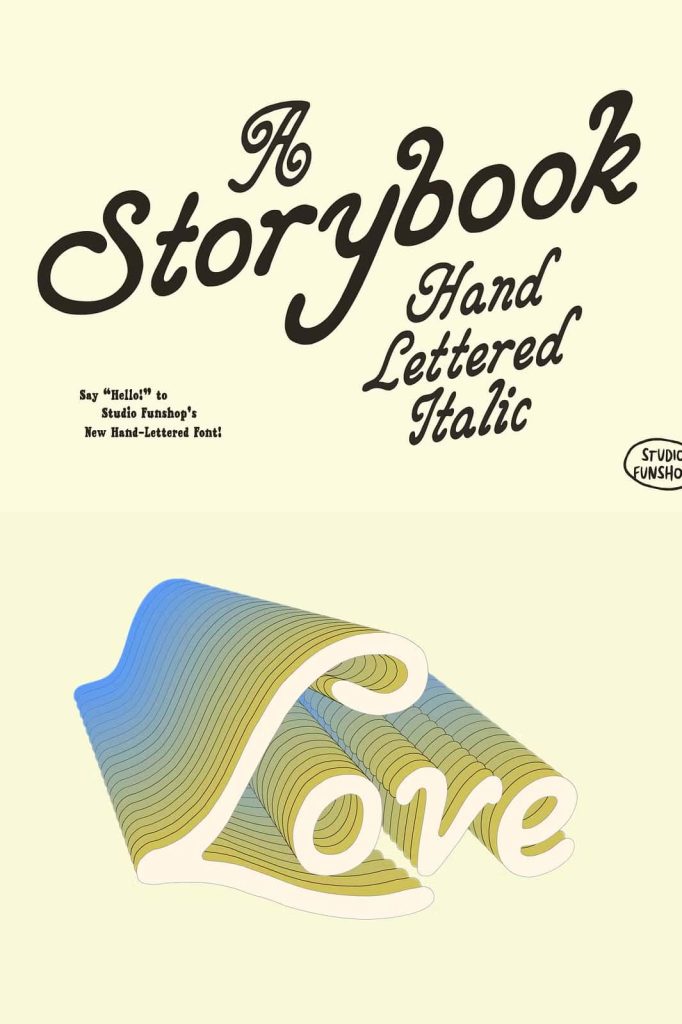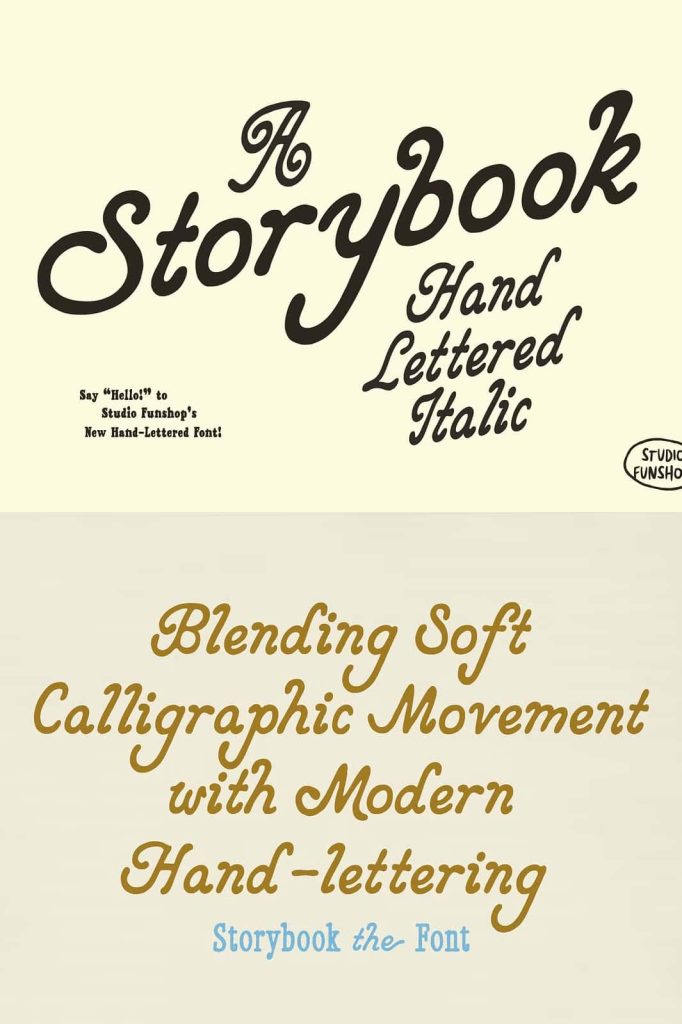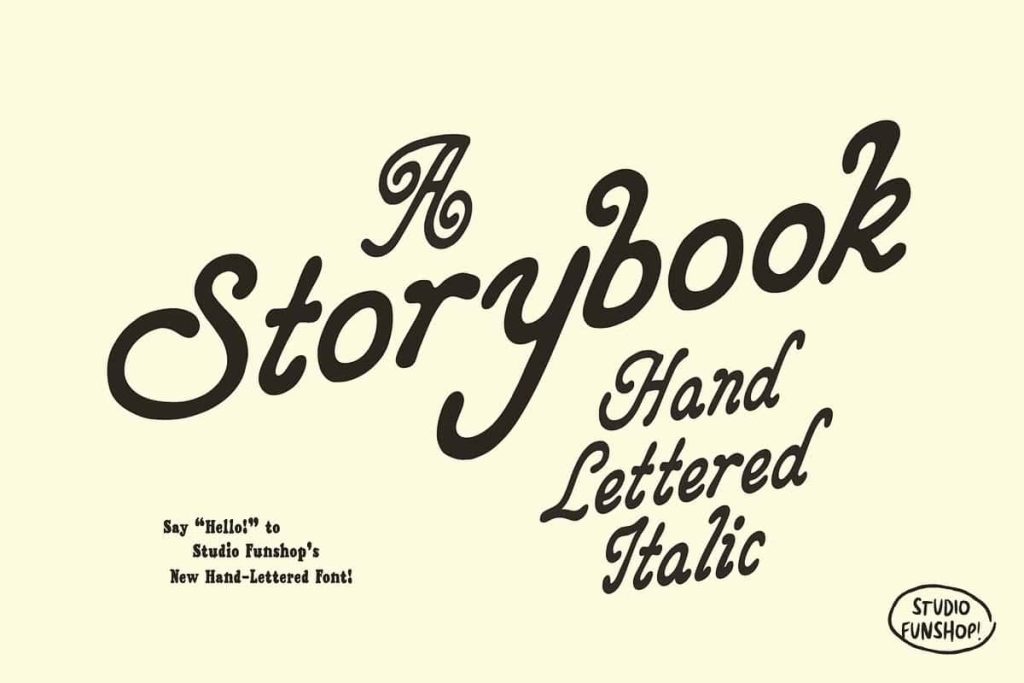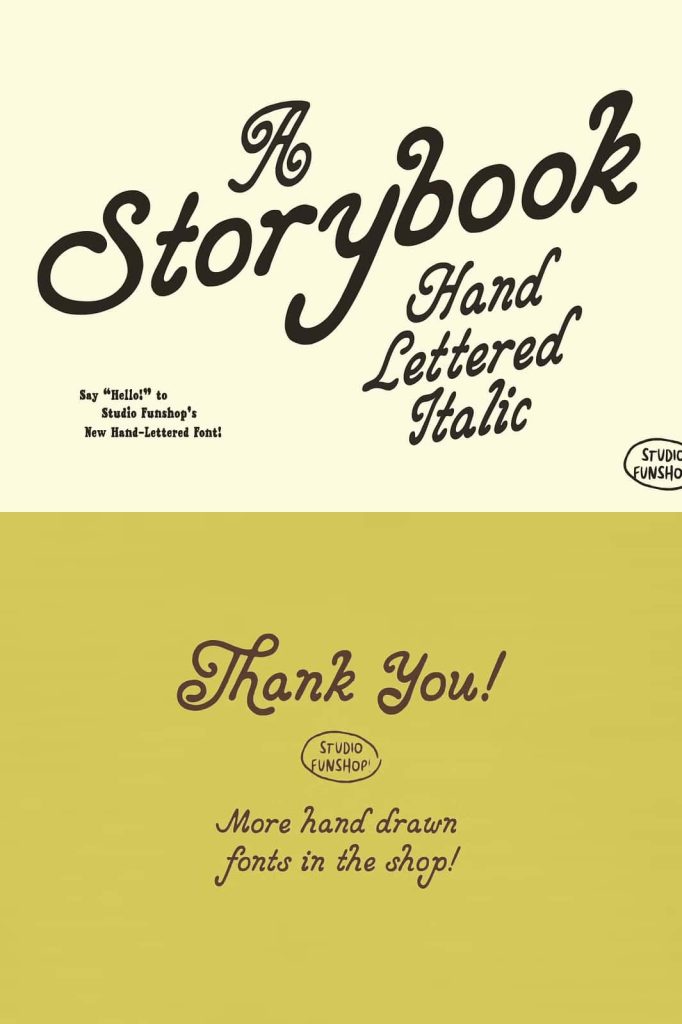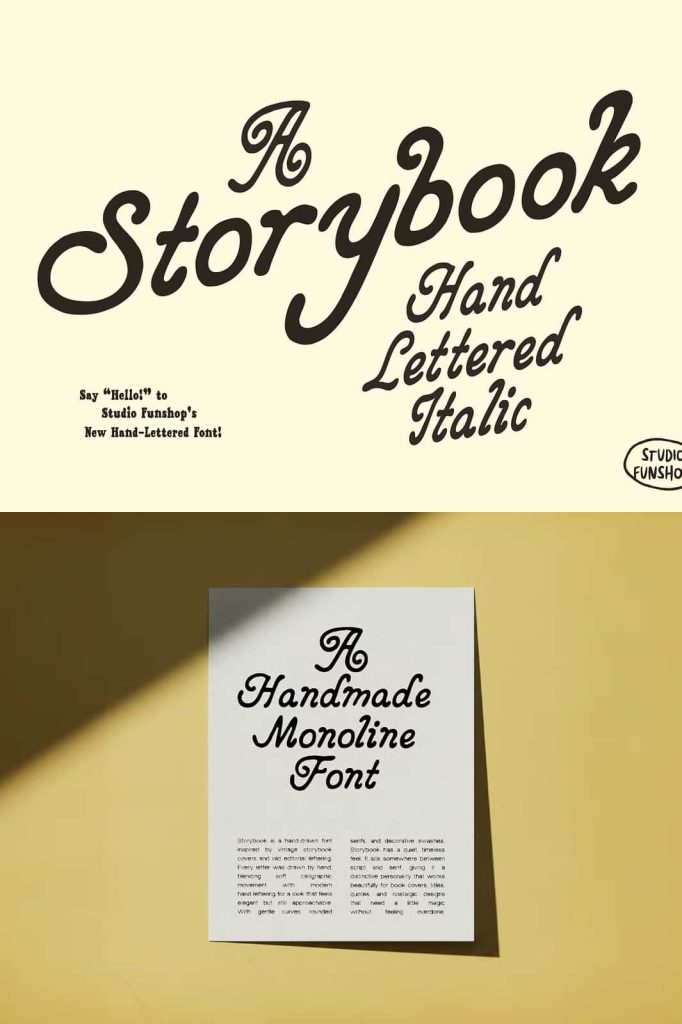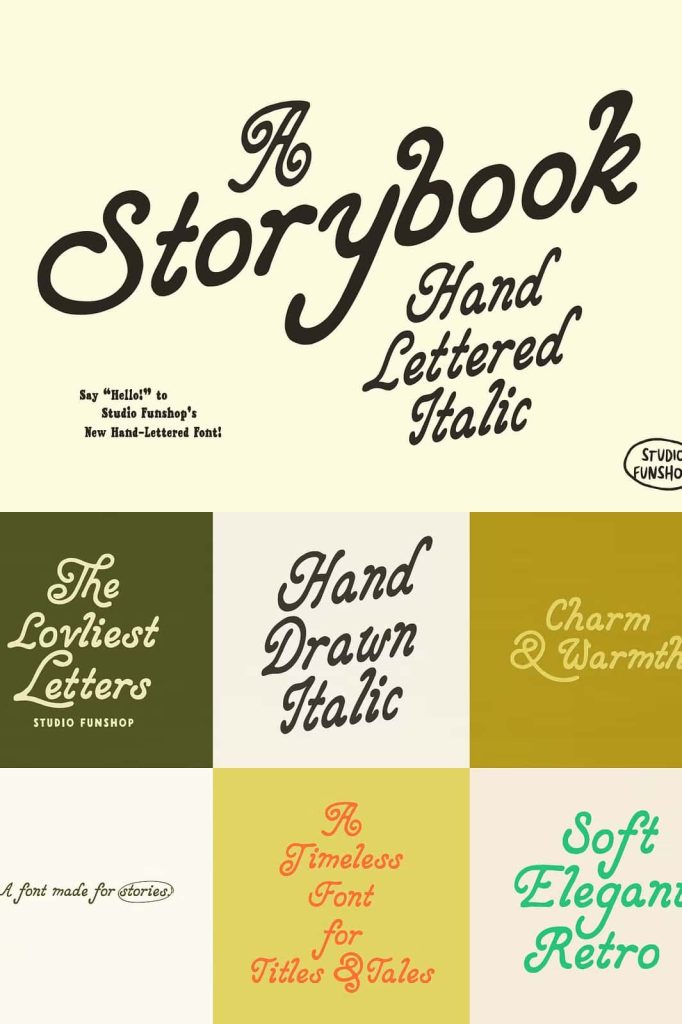
Storybook Hand-Drawn Font
Storybook is a charming hand-drawn font inspired by the timeless beauty of vintage storybook covers and classic editorial lettering. It combines soft calligraphic movement with modern hand-lettering to create a distinctive typographic style that feels elegant, warm, and approachable. Each letter carries the natural character of handmade typography, giving designers an expressive alternative to rigid digital typefaces.
Designed to bring personality and visual warmth to creative projects, Storybook works beautifully across branding, editorial layouts, packaging, invitations, posters, social media graphics, book covers, stationery, and more. Its graceful forms create an artistic presence while remaining friendly enough for everyday creative applications. Whether you want to evoke nostalgia or simply add a handcrafted touch to a modern composition, Storybook offers a versatile solution.
Inspired by Vintage Storybook Covers
Storybook takes inspiration from the typography found on classic storybook covers and vintage printed publications. These designs often used expressive lettering to create an immediate sense of wonder and imagination. Storybook captures that spirit while giving the traditional influence a contemporary interpretation.
The font can transport viewers toward a world of printed pages, illustrated stories, old libraries, charming characters, and carefully crafted book covers. Its nostalgic personality makes it especially effective for projects that need to communicate imagination, warmth, creativity, and timeless charm.
Hand-Drawn Character with Elegant Movement
Every letter in Storybook reflects the visual qualities of hand-drawn typography. Rather than relying on perfectly mechanical forms, the font introduces natural movement and subtle variation. This handcrafted approach gives words a more personal appearance and helps designs feel intentionally created rather than digitally generated.
The soft calligraphic movement adds elegance without making the typeface feel overly formal. Curved strokes and flowing details create a gentle rhythm across words, allowing the typography to move naturally through a composition. This balance between elegance and approachability makes Storybook suitable for both sophisticated and playful projects.
A Modern Take on Traditional Lettering
Storybook does not simply reproduce vintage lettering. It combines traditional influences with modern hand-lettering principles to create a style that feels relevant to today’s designers. This combination allows you to build nostalgic compositions without making them appear outdated.
Use Storybook with contemporary layouts, minimalist graphics, modern photography, or clean supporting typography. You can also embrace its vintage personality by combining it with illustrations, paper textures, classic borders, and traditional decorative elements. The font gives you the flexibility to explore both directions.
Perfect for Book Covers and Editorial Design
Storybook naturally suits book covers because its design reflects the expressive lettering associated with classic publications. Use it for titles, subtitles, chapter headings, quotes, and promotional artwork. Its handcrafted character can help a publication establish an emotional connection with readers before they even open the book.
The font also performs beautifully in editorial layouts. Use it for magazine headlines, feature titles, lifestyle publications, creative journals, brochures, catalogs, and photography projects. Combine large Storybook headlines with clean supporting text to create a sophisticated typographic hierarchy.
Beautiful for Invitations and Stationery
The elegant yet approachable personality of Storybook makes it an excellent choice for invitations and stationery. Use it for wedding invitations, birthday cards, greeting cards, thank-you notes, event announcements, menus, envelopes, and personal correspondence.
Its soft calligraphic movement can create a romantic and welcoming appearance without becoming excessively formal. Pair Storybook with delicate illustrations, botanical elements, subtle textures, or simple borders to create stationery that feels personal and thoughtfully designed.
Create Warm and Memorable Invitations
Use Storybook for names, event titles, dates, or short phrases that need to become the visual focus of an invitation. Its hand-drawn character can make important details feel more personal while maintaining a polished appearance.
For a balanced composition, combine Storybook with a simple serif or sans serif font for supporting information. This contrast allows the decorative lettering to stand out while keeping practical details clear and organized.
Ideal for Branding and Logos
Storybook can give brands a distinctive visual voice. Its handcrafted personality works particularly well for businesses that want to communicate creativity, authenticity, craftsmanship, warmth, or nostalgia. Use it for logos, wordmarks, product names, slogans, packaging titles, and promotional materials.
The font can suit creative studios, stationery brands, bookstores, cafés, handmade businesses, lifestyle brands, children’s products, publishing projects, boutique shops, and independent retailers. Its approachable character helps brands feel more human while its elegant details maintain a professional appearance.
Packaging with a Handcrafted Feel
Storybook can transform product packaging by adding a personal and artistic quality. Use it for product names, labels, collection titles, stickers, packaging headlines, and promotional messages. Its hand-drawn appearance can help products communicate craftsmanship and individuality.
The font works especially well for candles, stationery, handmade goods, specialty foods, children’s products, beauty products, books, gifts, and lifestyle merchandise. Combine Storybook with illustrations or natural textures to reinforce the handcrafted aesthetic.
Social Media and Creative Content
Storybook also brings personality to digital content. Use it for social media posts, promotional graphics, inspirational quotes, announcements, story templates, advertisements, website headers, and digital campaigns. Its expressive forms can make short phrases more visually engaging.
For social media, use Storybook as the main headline and pair it with clean supporting typography. You can also combine the font with photography, illustrations, or textured backgrounds to create a strong visual identity. Its vintage-inspired character can help your content feel more distinctive in crowded digital environments.
Creative Uses for Storybook Font
- Vintage-inspired book covers
- Editorial magazine headlines
- Logo and wordmark design
- Handmade brand identities
- Wedding invitations
- Greeting cards
- Stationery design
- Packaging and product labels
- Children’s product branding
- Bookstore and publishing branding
- Café and boutique branding
- Inspirational quote designs
- Website headlines
- Posters and promotional artwork
- Photography projects
- Creative brochures and catalogs
- Event announcements
- Gift and lifestyle product designs
- Personal creative projects
Balance Elegance and Approachability
One of Storybook’s strongest qualities is its ability to balance elegance with a friendly personality. The calligraphic movement gives the font a sophisticated quality, while the hand-drawn construction prevents it from feeling distant or overly formal.
This balance makes Storybook suitable for a wide range of audiences. You can use it for premium branding and editorial work, but you can also apply it to playful invitations, children’s products, lifestyle graphics, and personal projects. The font adapts to the surrounding design while maintaining its recognizable handcrafted character.
Pair Storybook with Complementary Fonts
Storybook can become even more effective when you combine it with a simple supporting typeface. A clean sans serif can provide structure and readability, allowing Storybook to handle the visual emphasis. A classic serif can create a more traditional editorial atmosphere.
Use Storybook for headlines, titles, names, and short phrases while reserving the supporting font for paragraphs, captions, descriptions, and other practical information. This approach creates a clear hierarchy and allows the hand-drawn lettering to remain the centerpiece of the design.
Why Choose Storybook Font?
Choose Storybook when you want to introduce handcrafted warmth and vintage character into your typography. Its combination of soft calligraphic movement and modern hand-lettering creates a style that feels elegant without losing its approachable personality.
The font adapts easily to branding, editorial design, packaging, stationery, invitations, book covers, social media graphics, and many other creative applications. Its nostalgic influence can add emotional depth to a design while its contemporary construction keeps the final result fresh.
Final Thoughts
Storybook is a hand-drawn font that captures the charm of vintage storybook covers and classic editorial lettering while offering a modern creative interpretation. Its soft calligraphic movement creates elegance, while its handcrafted forms add warmth and personality.
Use Storybook to create memorable book covers, expressive logos, beautiful invitations, distinctive packaging, editorial headlines, social media graphics, and handcrafted brand identities. Pair it with complementary typography or let it take center stage in a minimalist composition. Its versatility allows you to create designs that feel nostalgic, artistic, welcoming, and thoughtfully crafted.
If you want a hand-drawn typeface that combines vintage inspiration with modern approachability, Storybook provides a graceful and expressive choice for your next creative project.